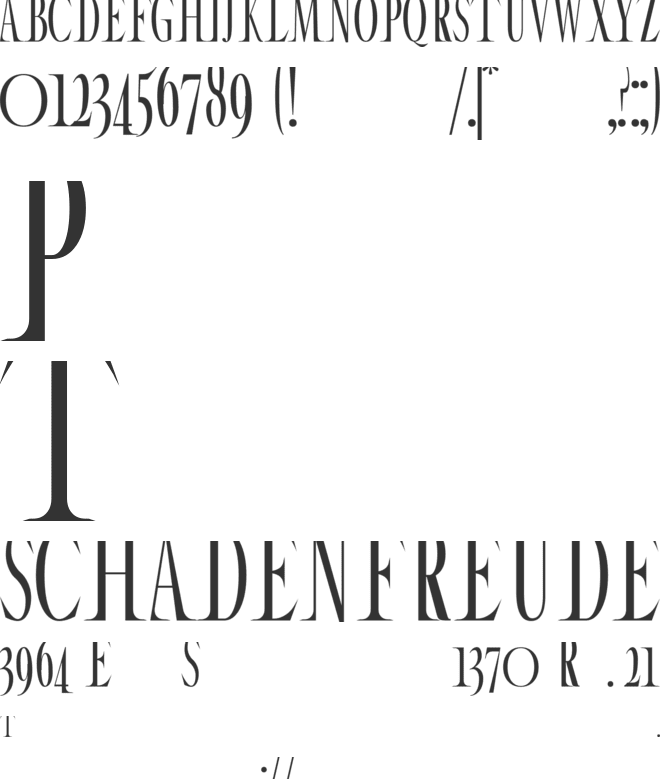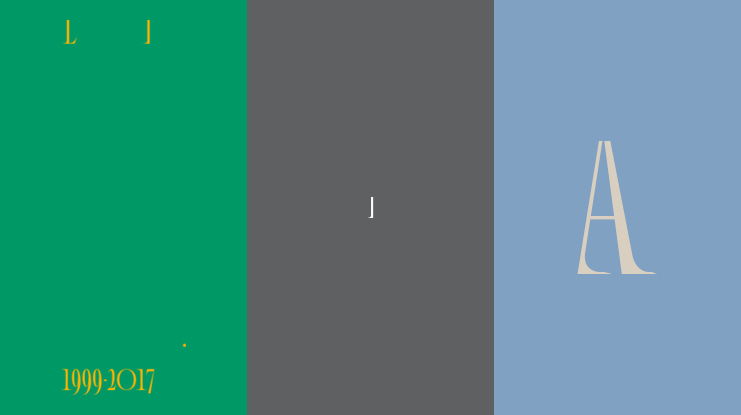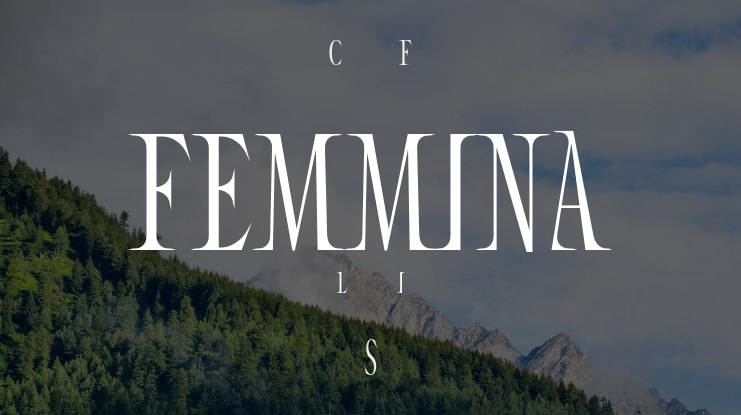
FEMMINA Font Family
🎨 Font Name: FEMMINA by Minimalist Art Studio
🎨 Font Description: Femmina is a feminine serif with multilingual support—perfect for beauty branding, romantic packaging, and editorial elegance.
✔ Complete Latin set + multilingual diacritics
✔ Alternates, stylistic sets & ligatures
✔ Numbers, small caps, and extended punctuation
✔ Bonus italics and family styles